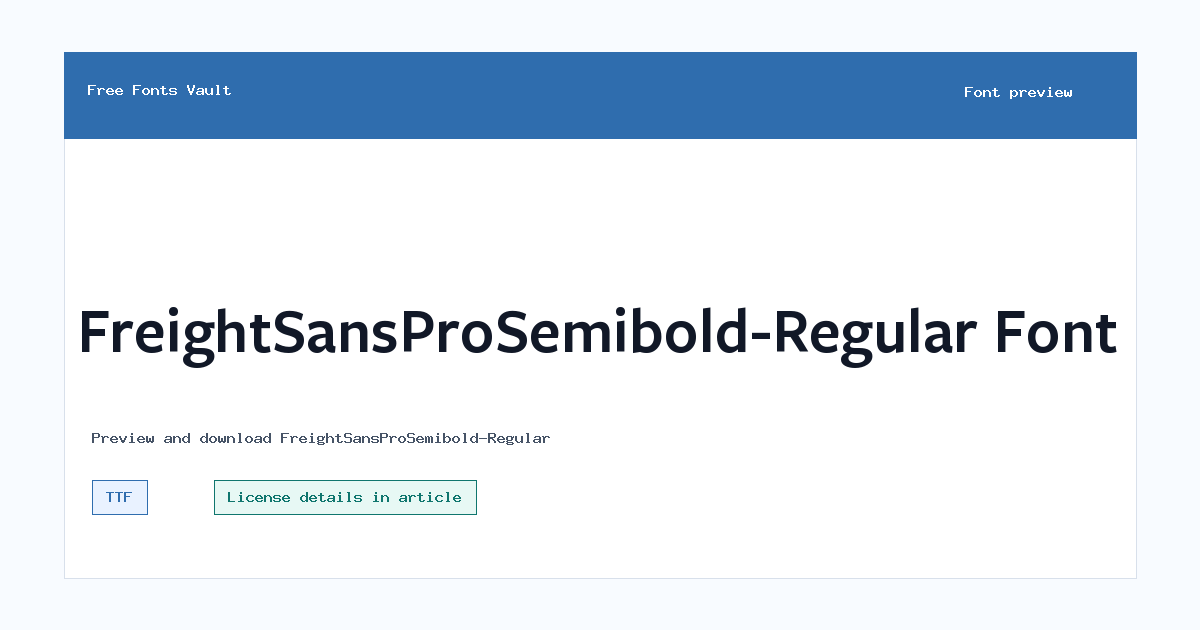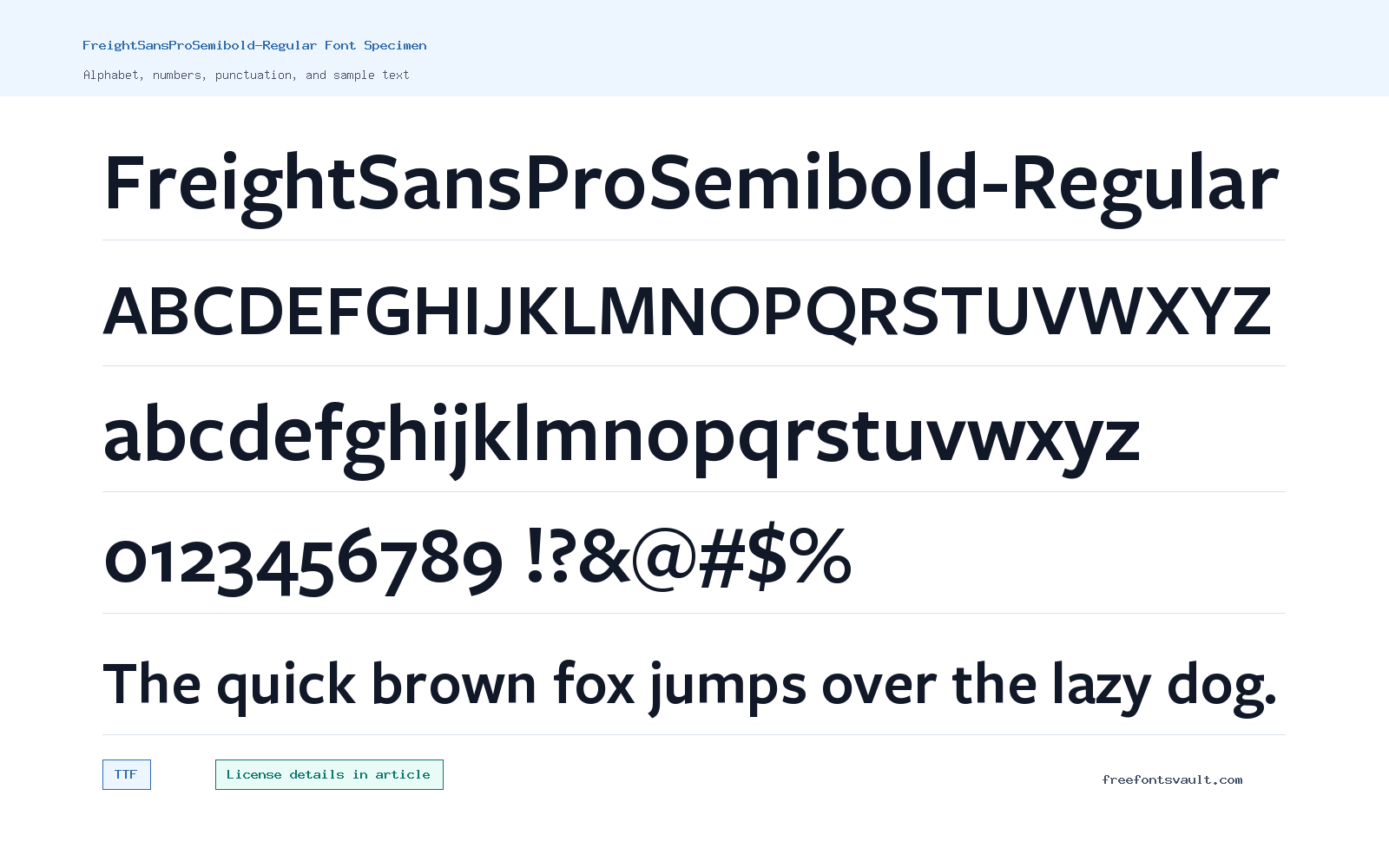
FreightSansProSemibold-Regular
- Designer Joshua Darden
- Foundry Joshua Darden & Phil's Fonts, Inc
FreightSansProSemibold-Regular font.
FreightSansProSemibold-Regular is a semibold sans serif font file in TTF format. It is a practical choice to test when you need stronger text weight without moving into a heavy display style.
About FreightSansProSemibold-Regular
FreightSansProSemibold-Regular has a normal style with a 700 weight, so it is built for text that needs more presence than regular body copy. Use it for headings, section labels, short descriptions, buttons, navigation items, and compact blocks where a clear sans serif voice is useful. Because only one regular semibold TTF variant is listed, the best way to judge it is through the preview tool: type your own brand name, title, menu label, or sample paragraph and check how the spacing, height, and weight feel at the sizes you plan to use.
This font is most useful when you want emphasis without relying on all caps or oversized text. Try it in short lines first, then test longer copy carefully. A semibold weight can look confident in headlines and interface text, but it may feel dense in full paragraphs, especially on small screens. Pair it with a lighter sans serif or a calm serif for body text if you need contrast. If you plan to use it in a logo, client project, app, product packaging, or paid campaign, confirm the license from the original rights holder first.
For interface-style use, compare it beside the regular and light weights already used in your design. Semibold can be useful for section titles and calls to action, but it should not make every line compete for attention.
- Semibold 700 weight for stronger headings and emphasis
- Headlines, subheadings, buttons, labels, and navigation text
- Short branding tests, editorial titles, posters, and web mockups
The designer is listed as Joshua Darden, with the foundry listed as Joshua Darden & Phil's Fonts, Inc.